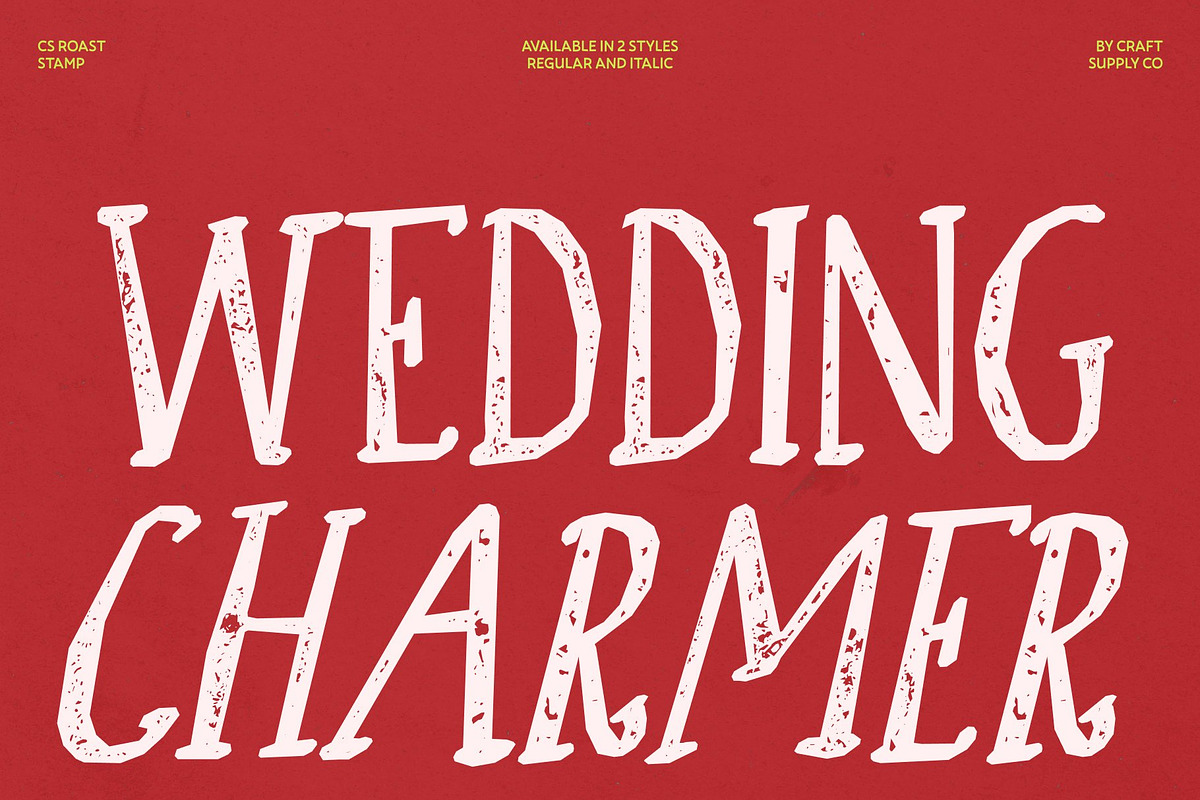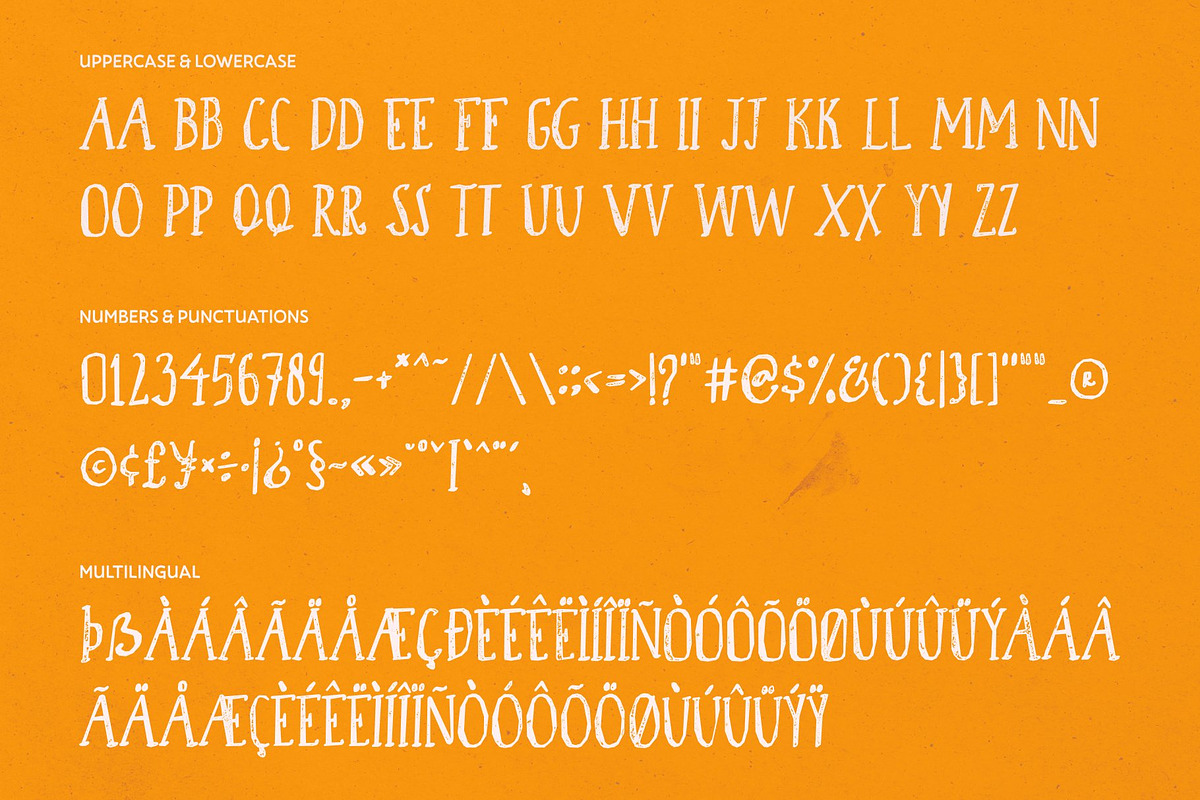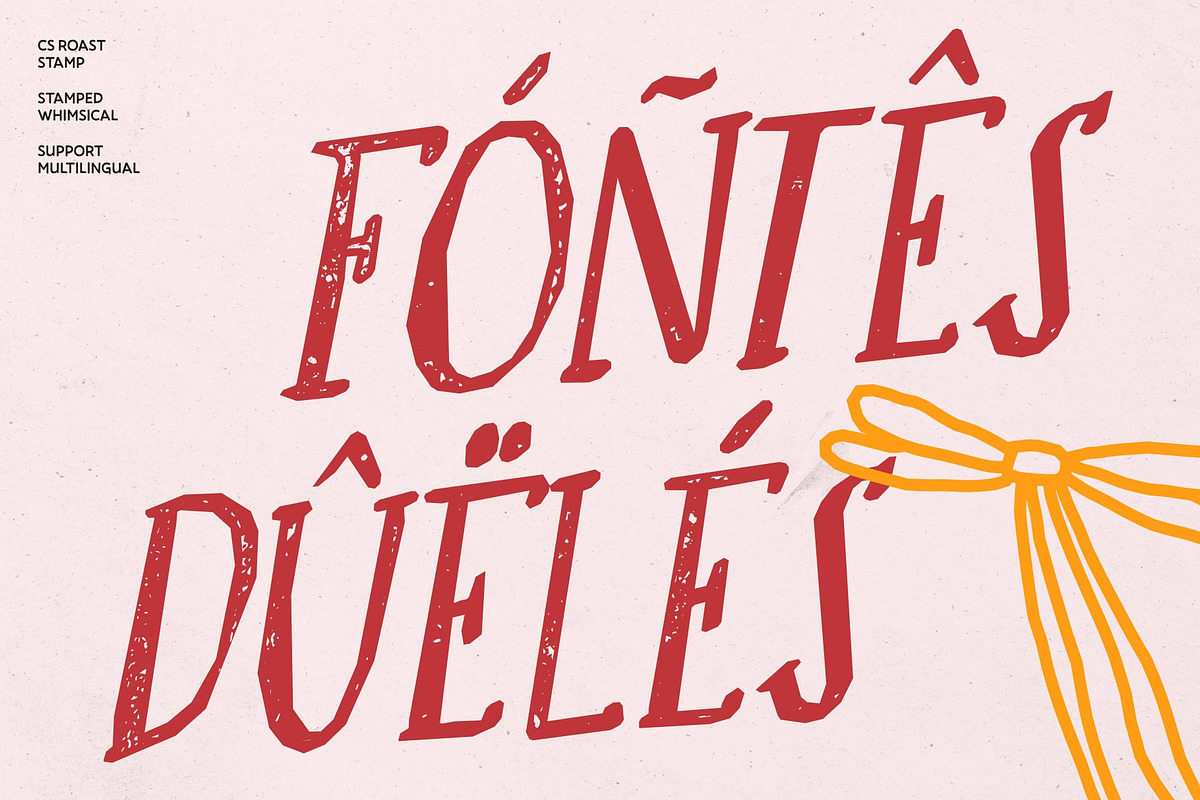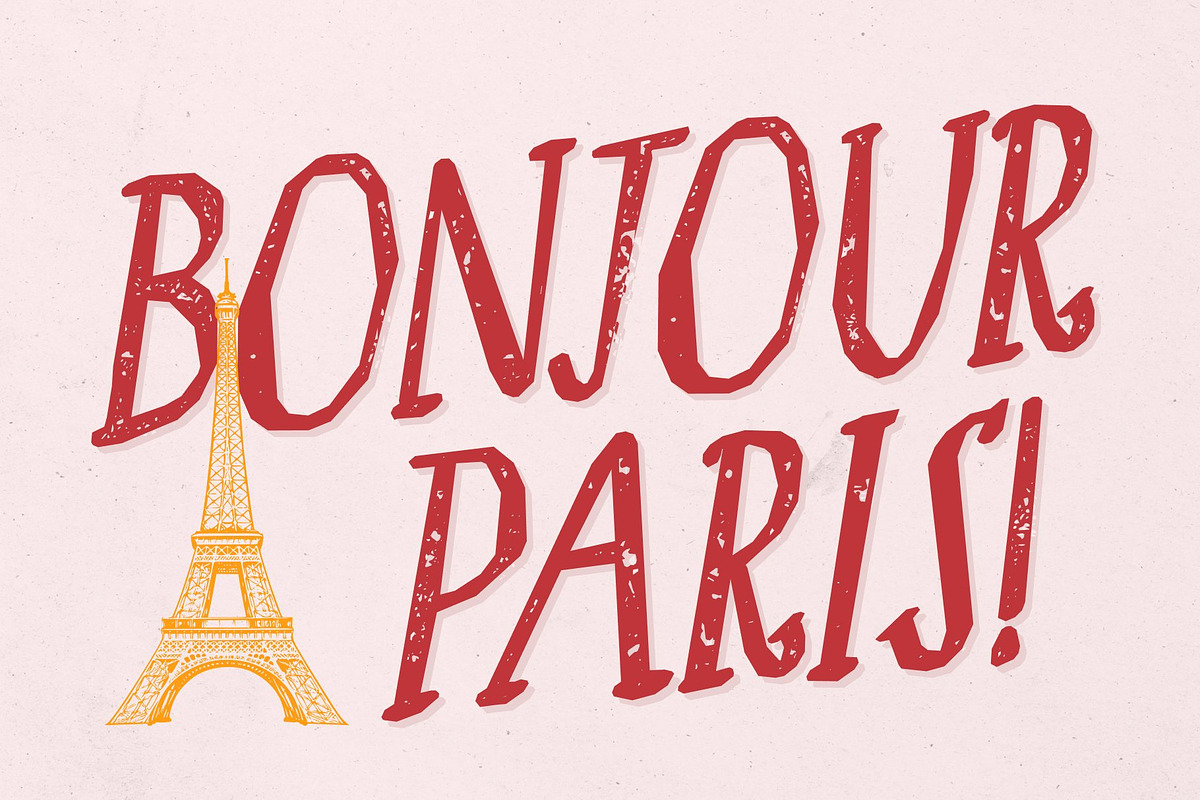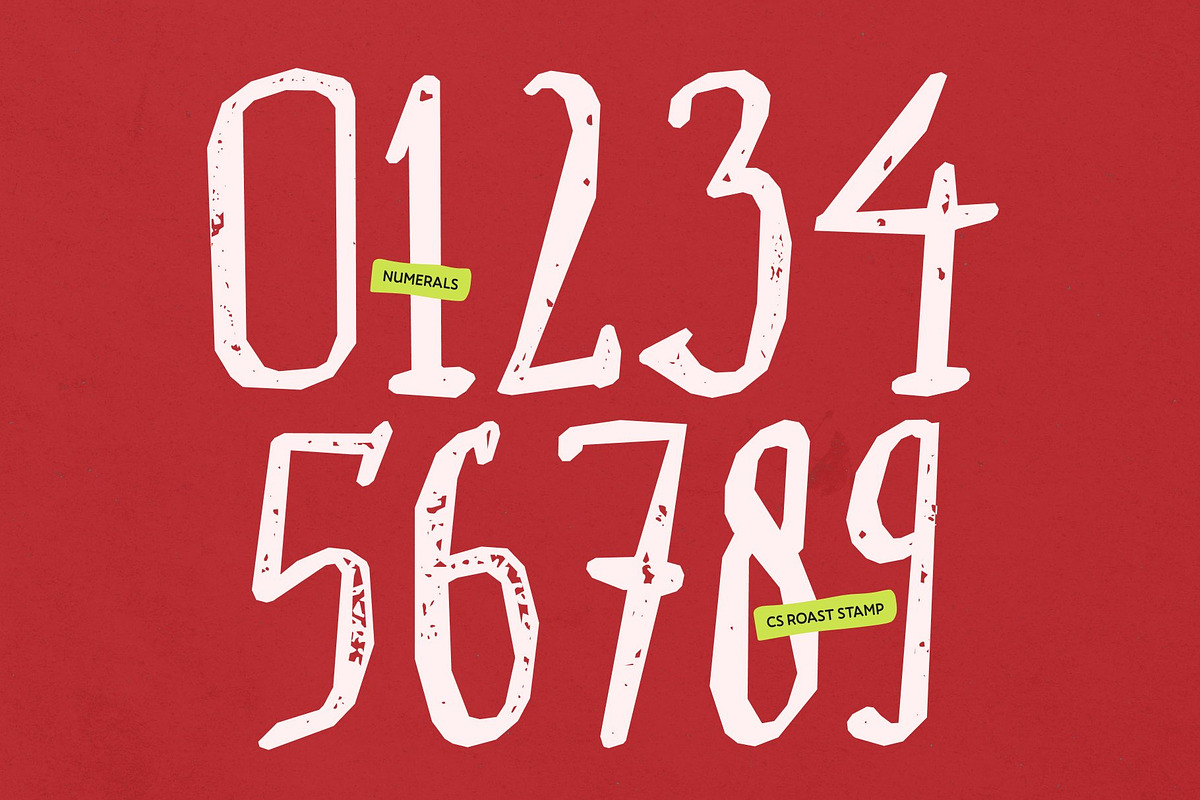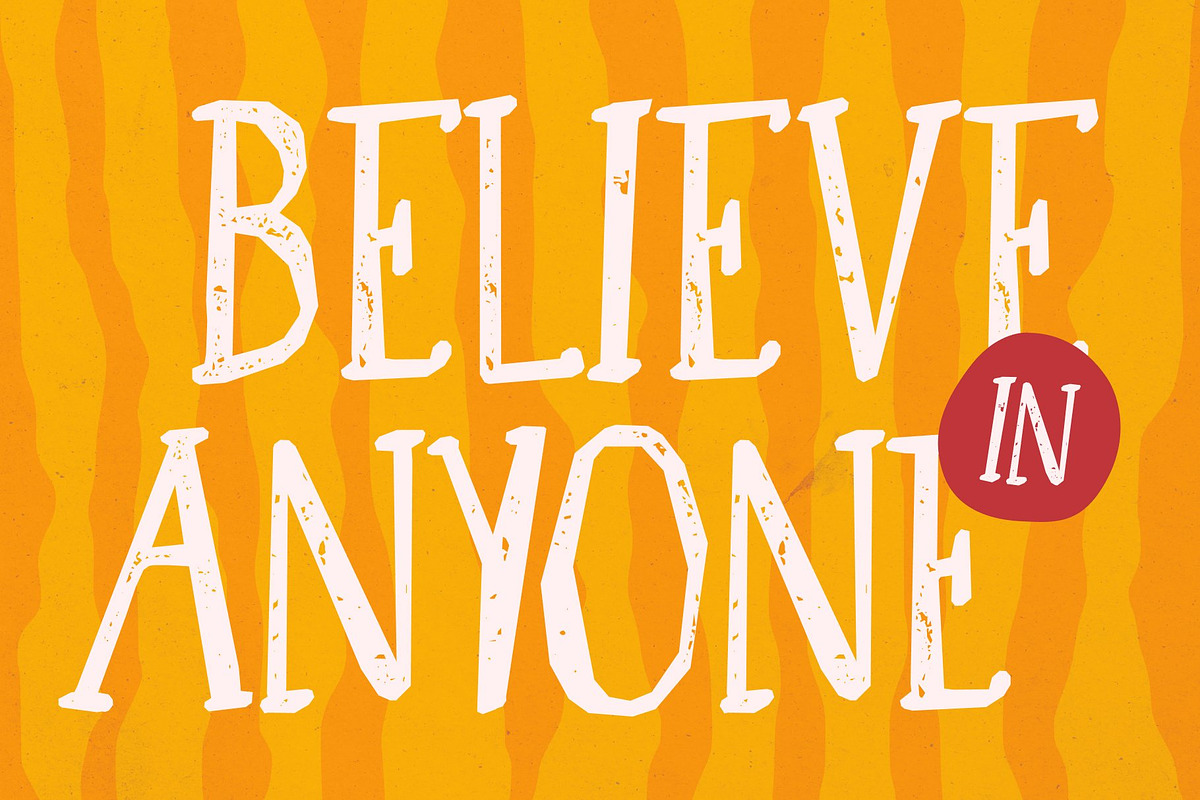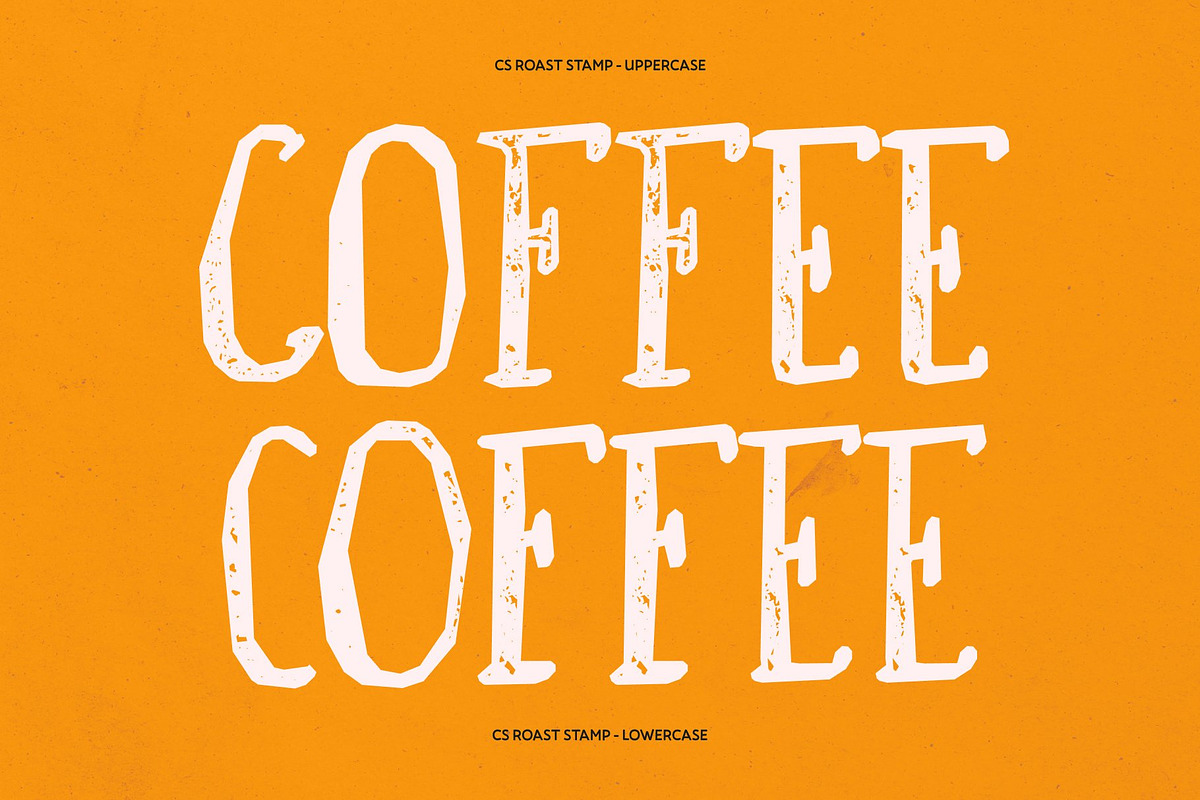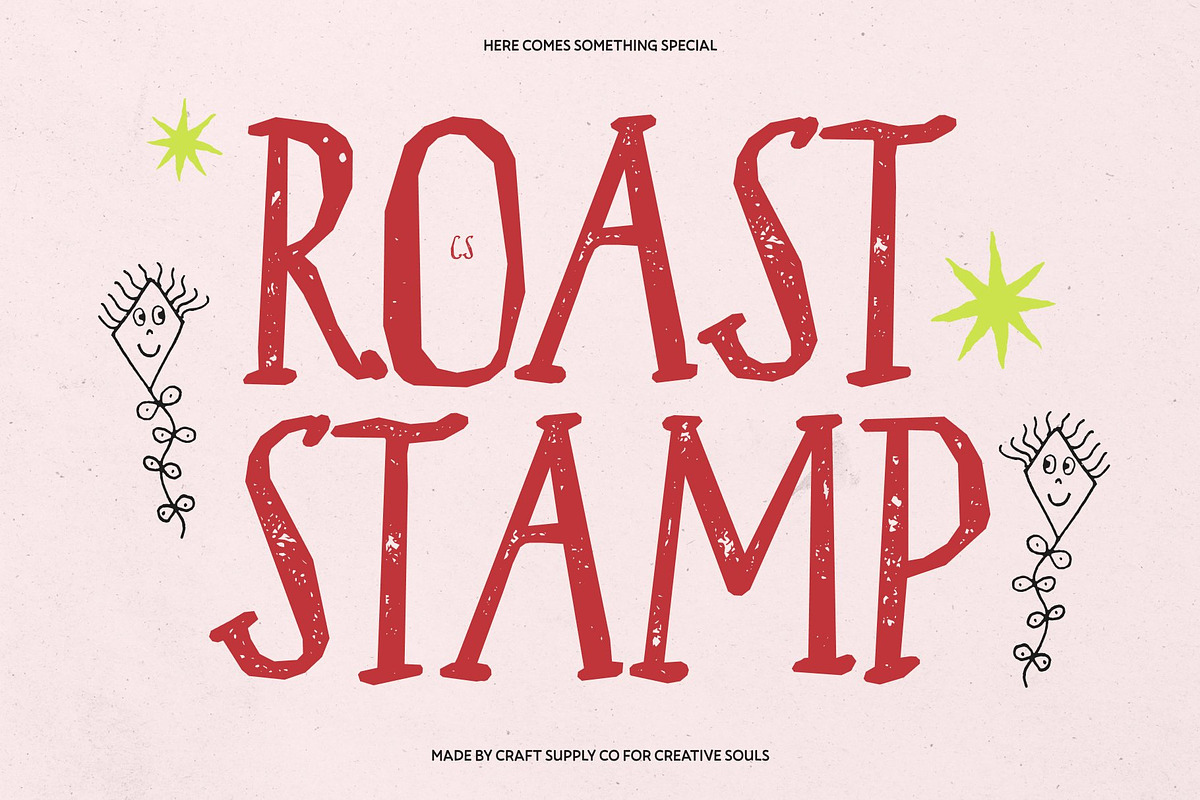
CS Roast Stamp
Step into a world of imagination and creativity with CS Roast Stamp, a storybook handwritten font that captures the pure magic of classic fairytale aesthetics. Inspired by the charming imperfection of hand-drawn lettering, this unique typeface blends curved serif forms with playful decorative details, establishing an enchanting and whimsical appearance that instantly draws the eye.
Beyond its playful nature, the integrated stamp effect introduces distinct vintage characters, an authentic artistic texture, and a charming old design. This distressed surface gives every glyph a tactile visual depth, mimicking traditional printing methods to ensure your work carries a soulful, human touch whether rendered on paper or viewed across digital screens.
The whimsical flow and handmade aesthetic add undeniable charm to prominent headlines and titles, making it an exceptional choice for any design aiming to evoke joy, curiosity, and storytelling magic. Its expressive letterforms lend themselves naturally to boutique branding, whimsical book covers, children's literature, artisanal product packaging, and creative event stationery.
Bring a nostalgic yet imaginative spirit to your next creative venture by letting these textured glyphs guide your visual narrative. Whether you are building an independent lifestyle brand or designing memorable event graphics, CS Roast Stamp delivers an effortless blend of historic charm and creative wonder that leaves a lasting impression on every single application.
CS Roast Stamp Regular
CS Roast Stamp Italic